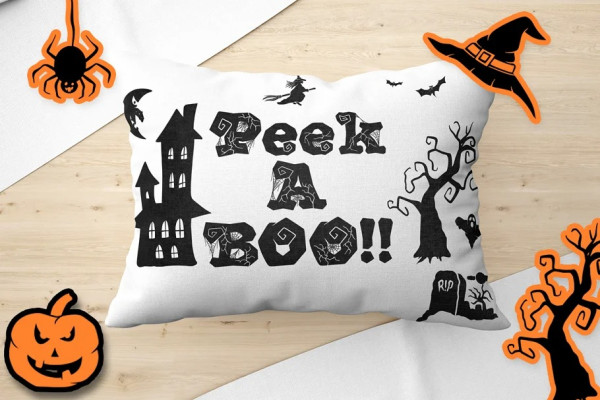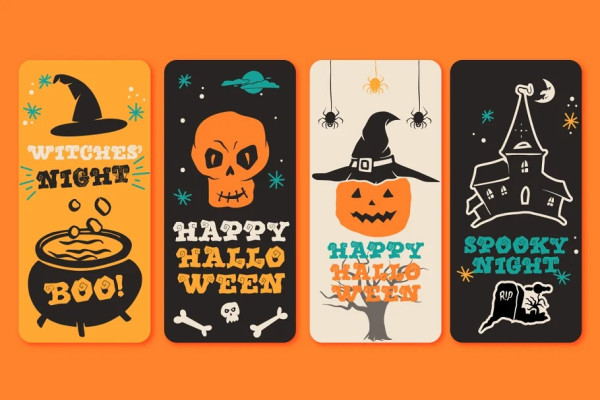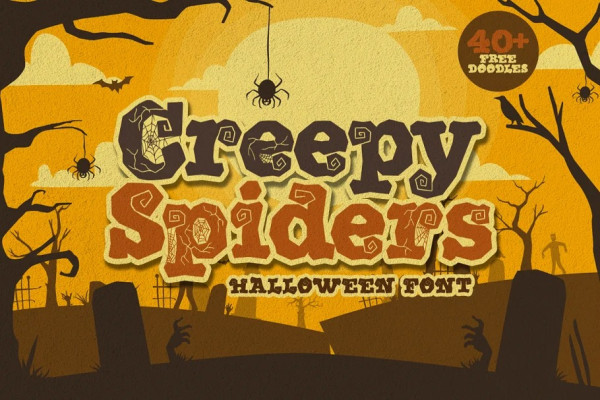
Creepy Spiders Font
Creepy Spiders Font inspired by Halloween style with a fun theme. The Uppercase and lowercase letters are the same. They alternate between webs and 40++ Free Doodles.
Perfect for quotes, headings, blogs, logos, advertising, crafting, invitations and more! These fonts would be perfect to combine in your design.